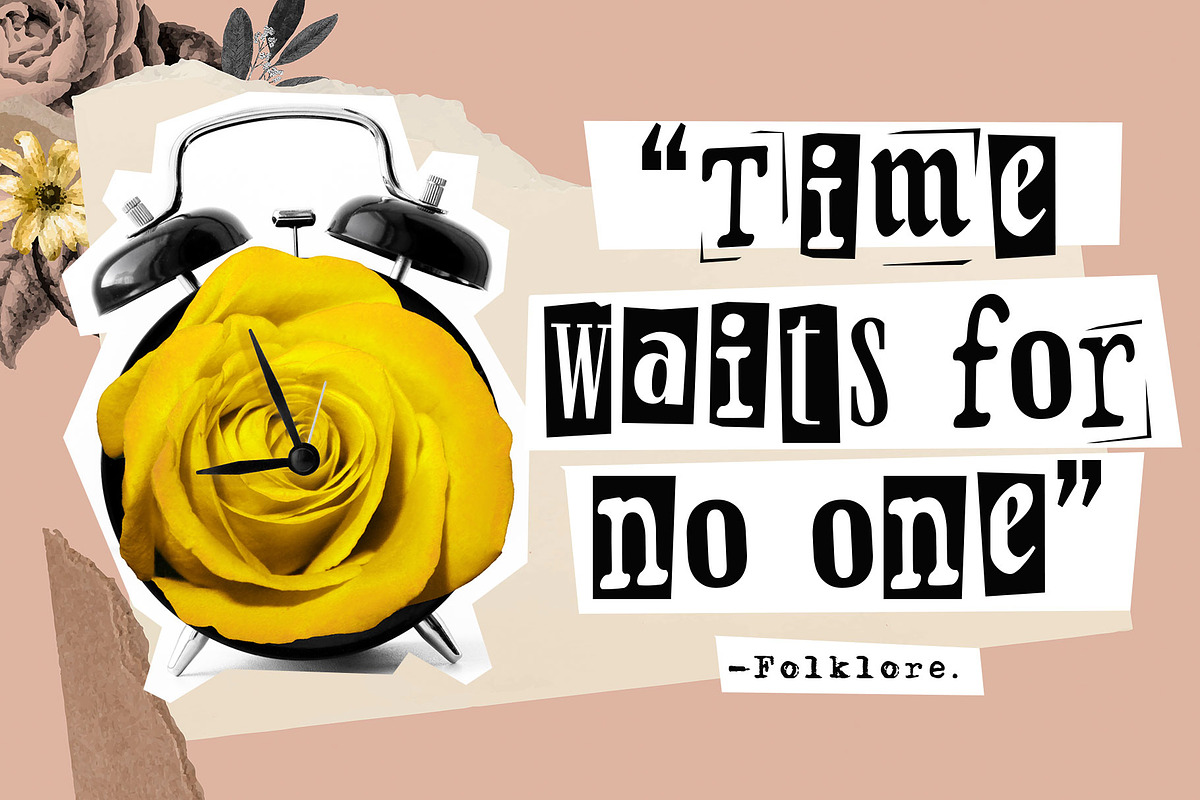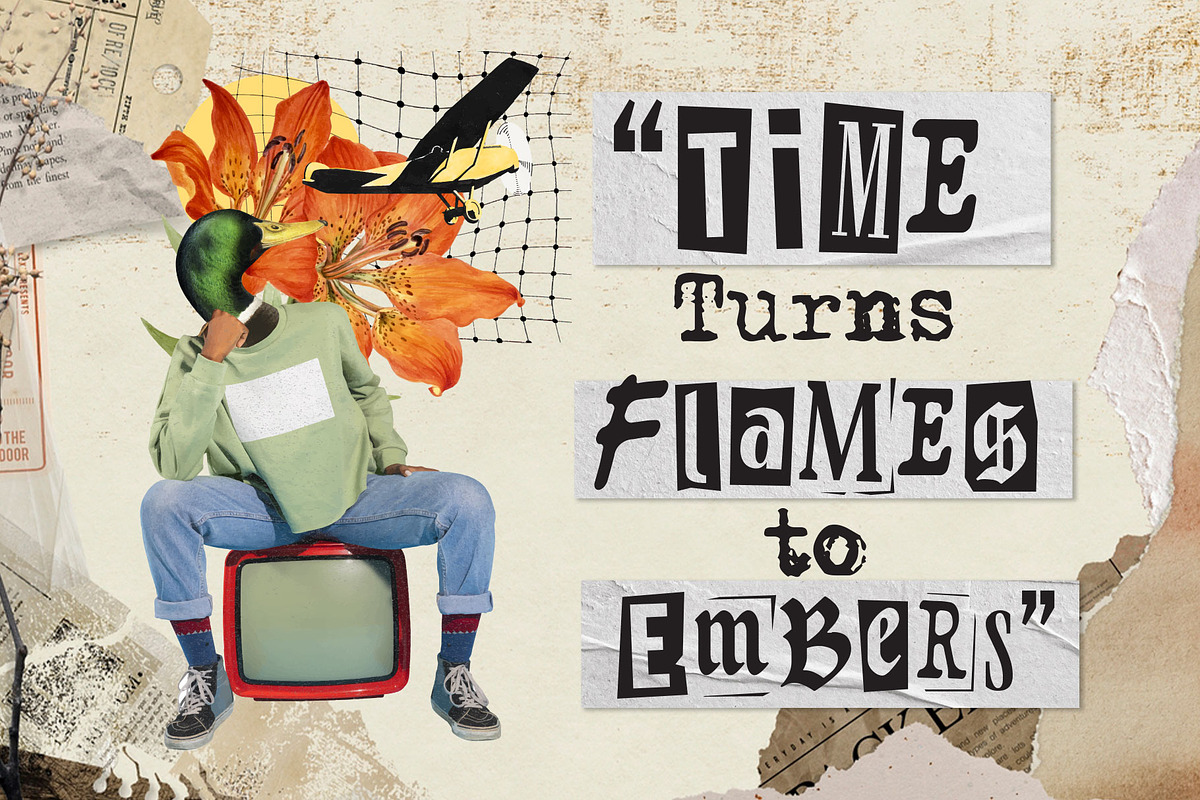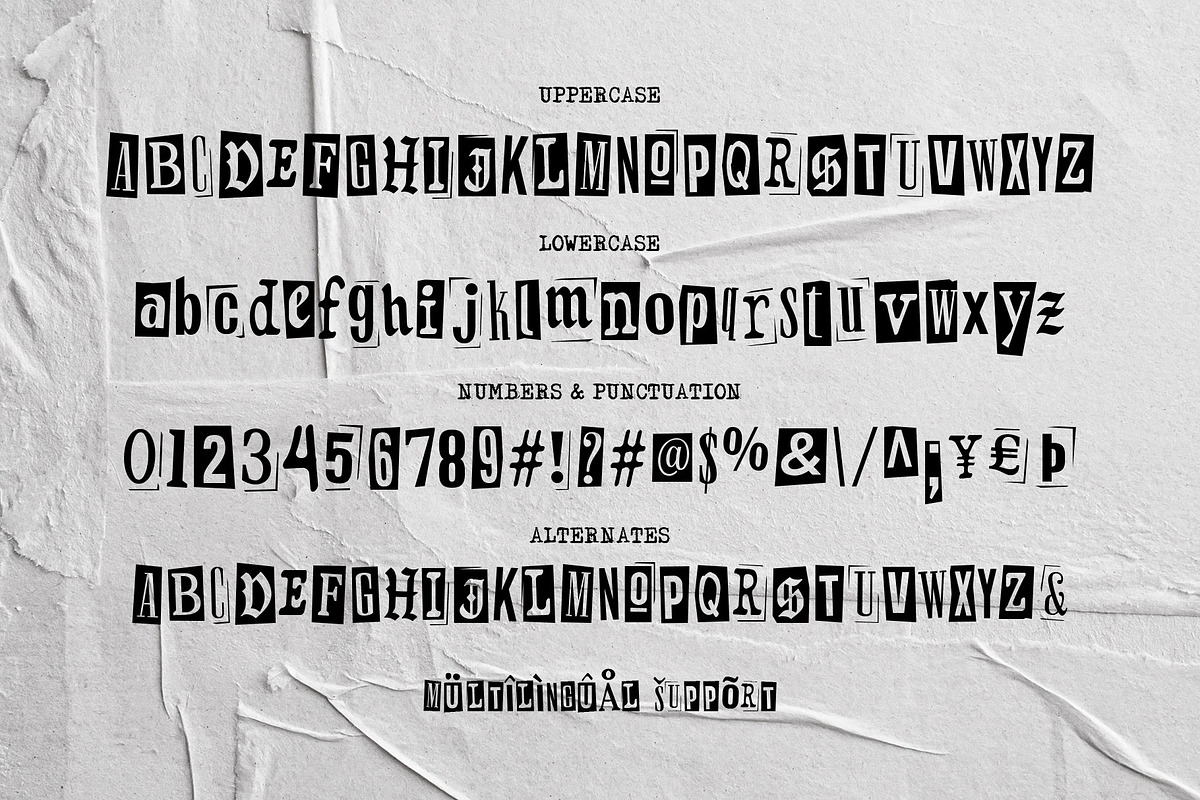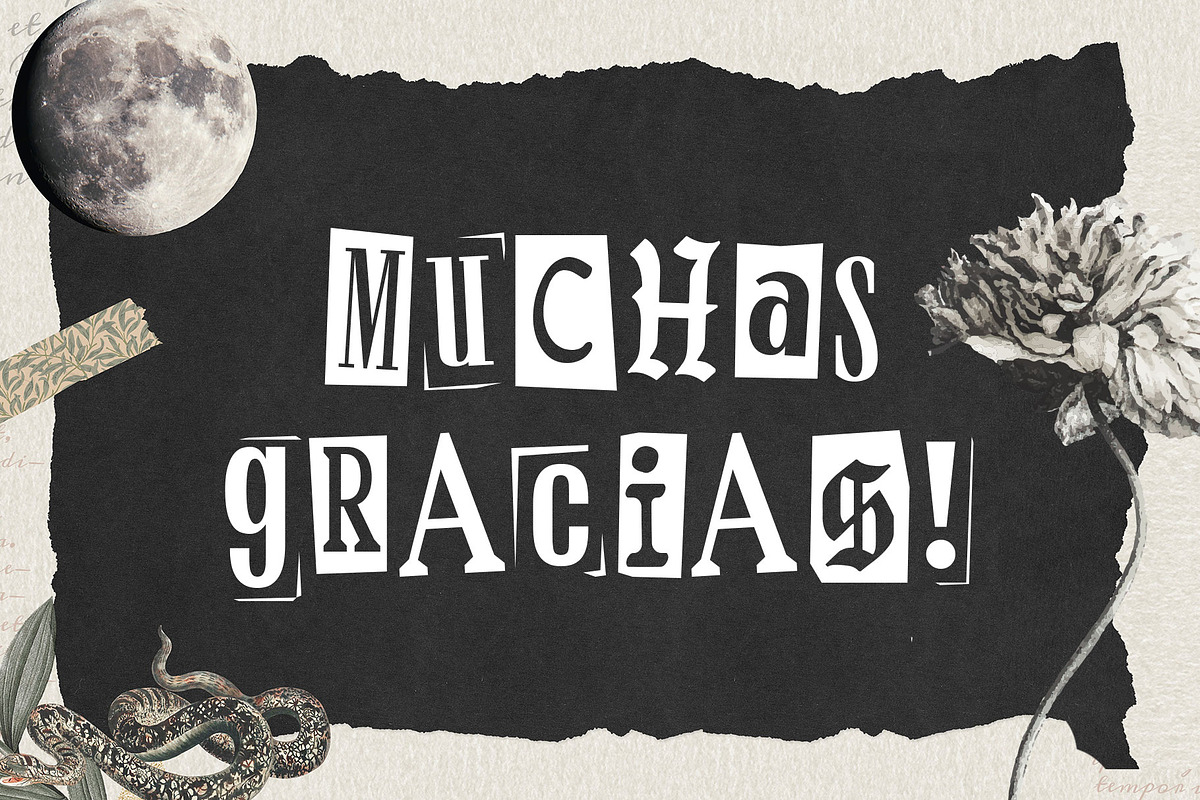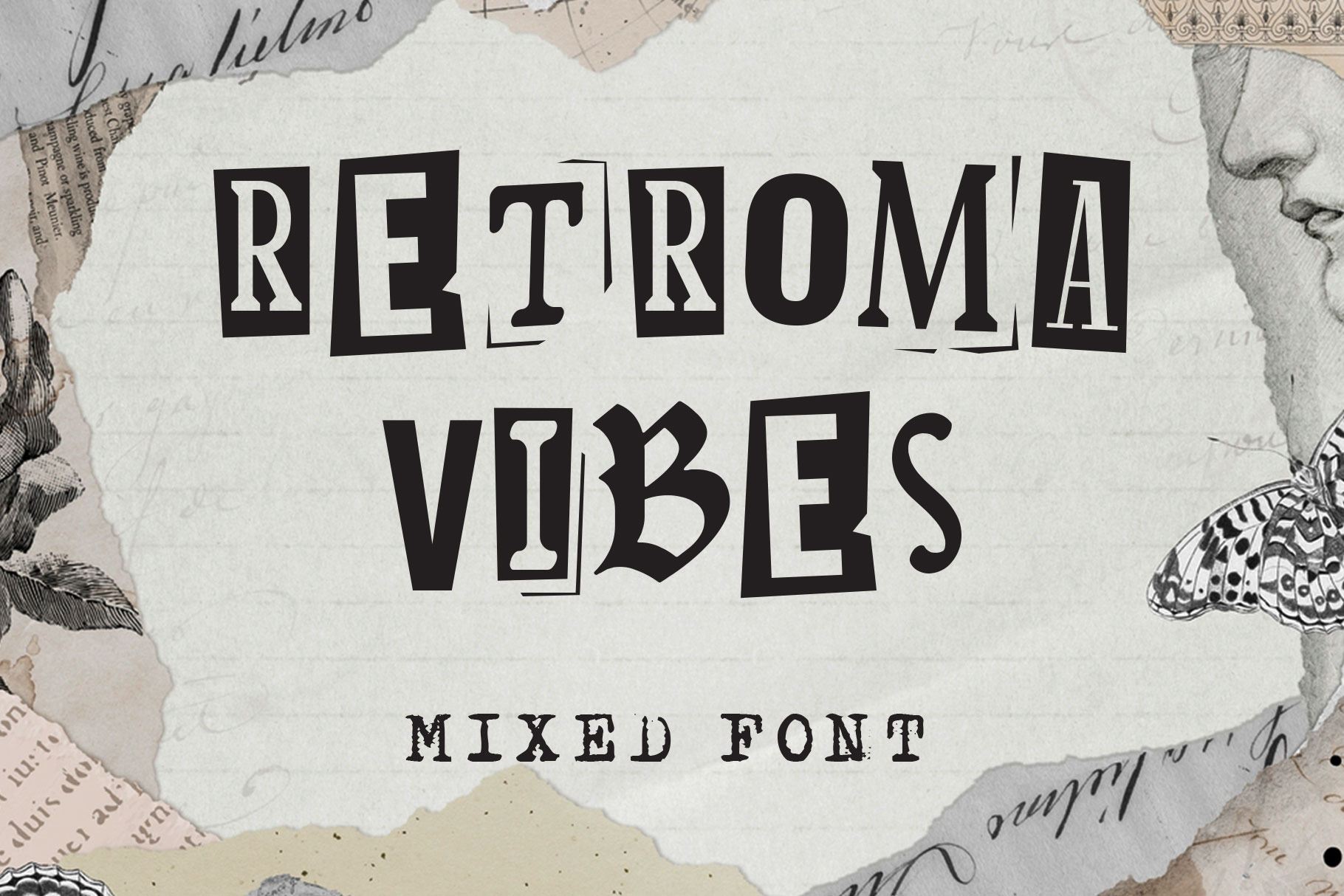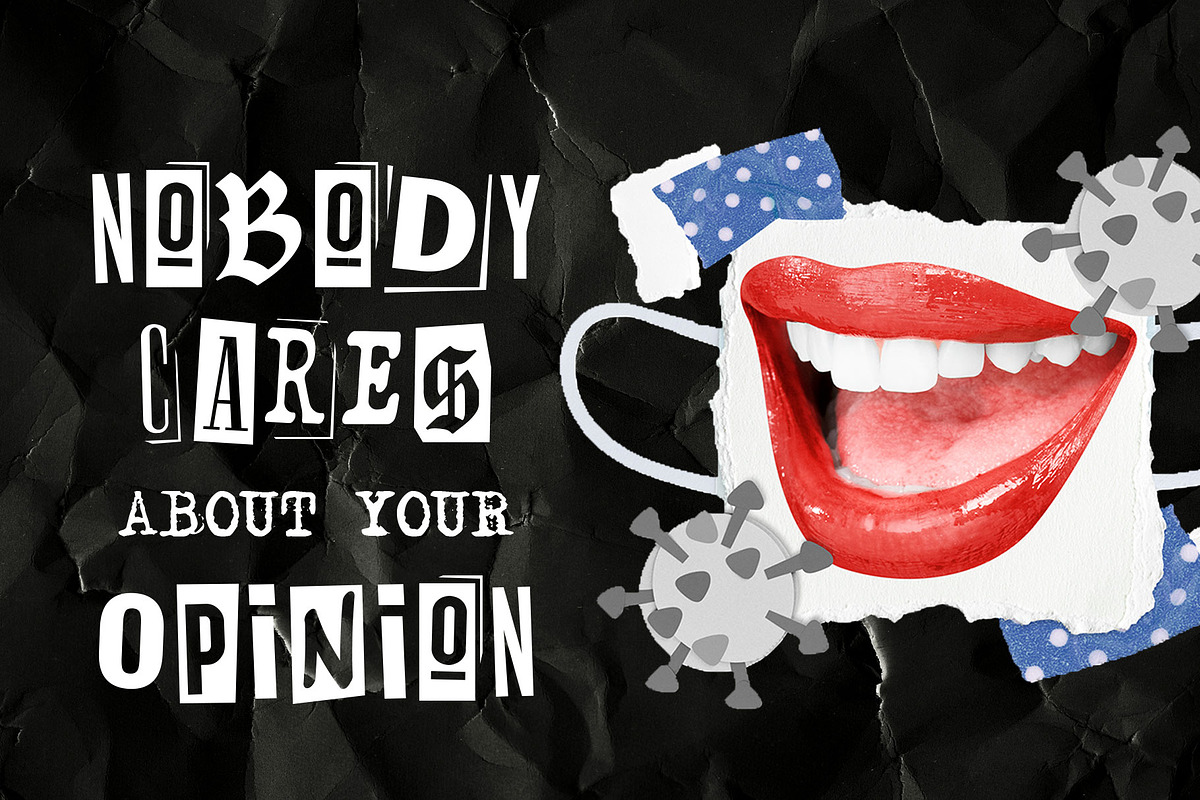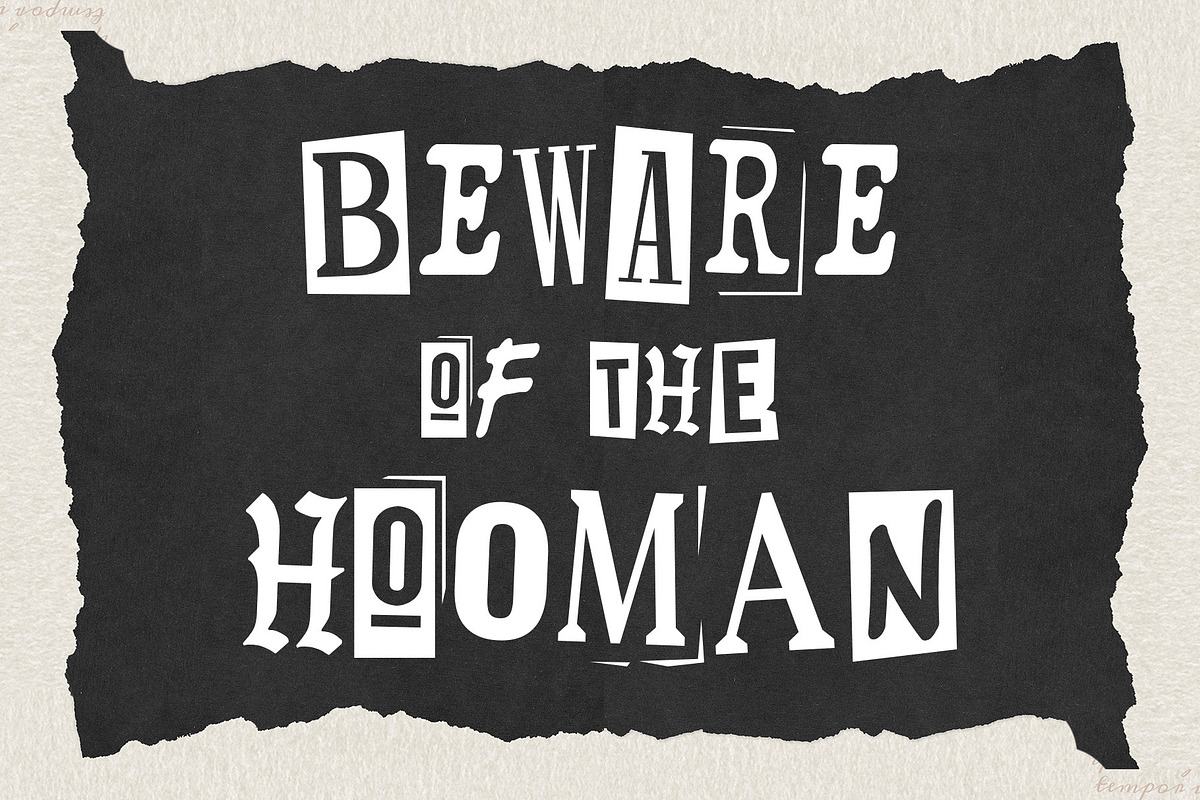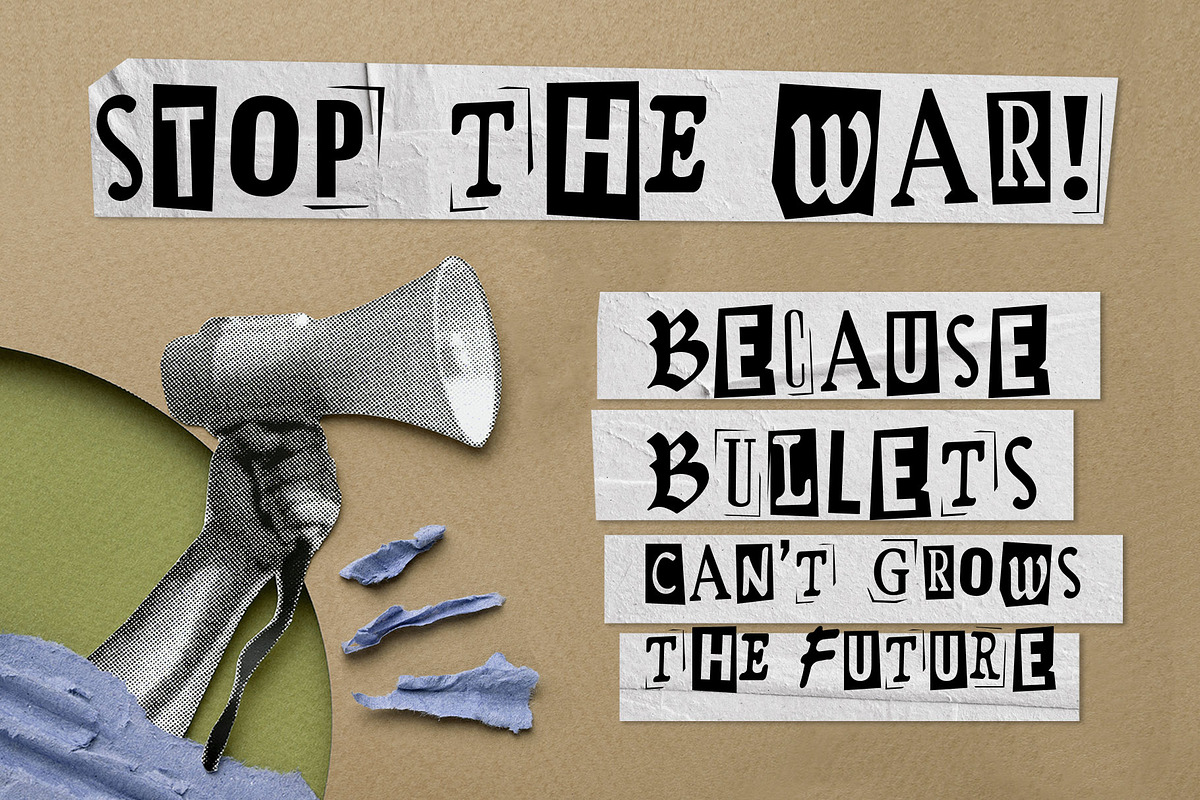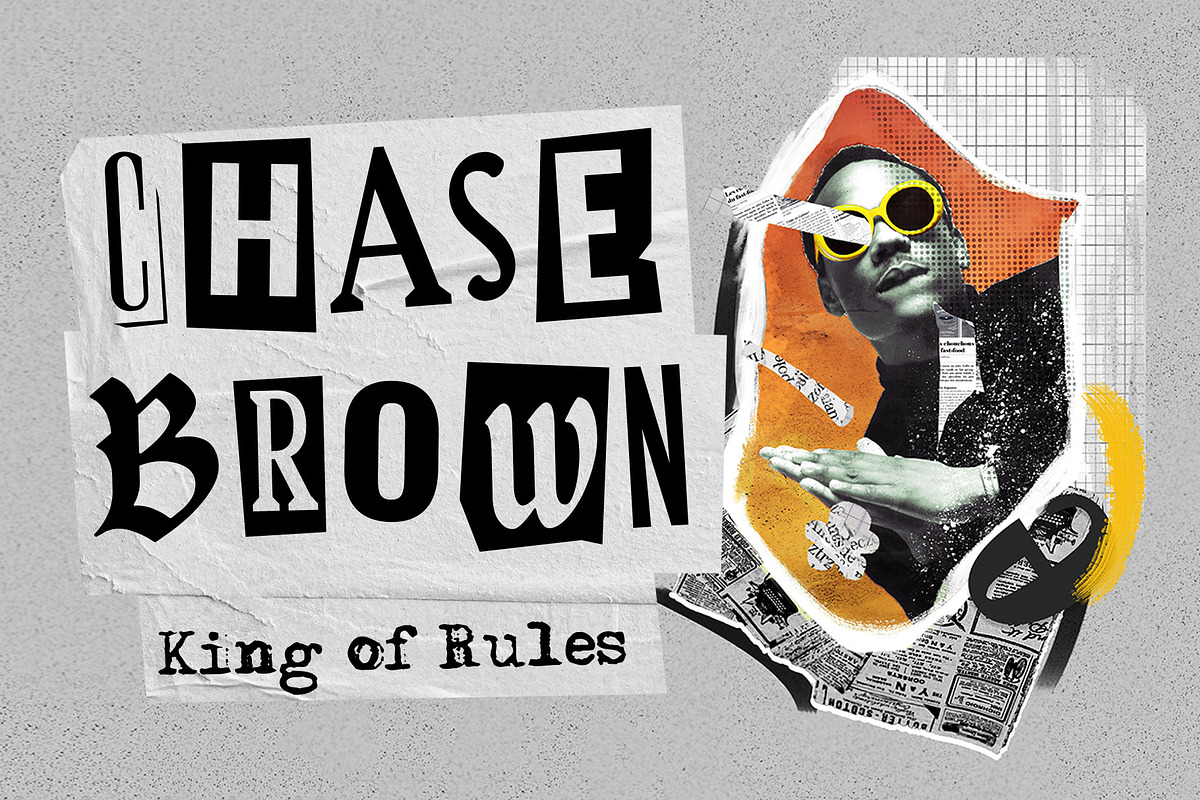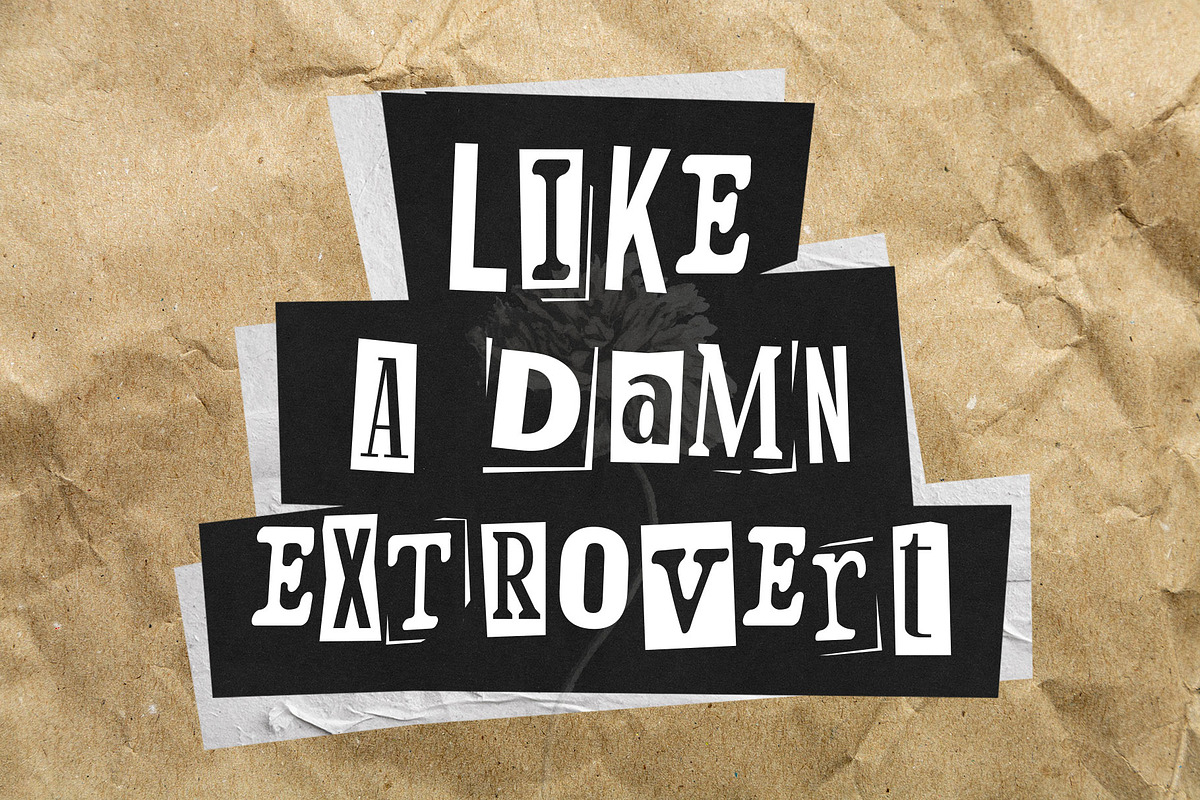
Retroma Vibes - Mixed Font
Try something different, we proudly present our new exploration named "Retroma Vibes" a mixed font inspired by retro collage art and clipping of old newspapers.
Feel the old school taste with this block font mixed of sans serif, condensed serif, blackletter, handwriting, and old typewriter style, combined into a chaotic collage style.
You can also mix and match the letter by using the alternates characters or switching with the lowercase which gives you a more attractive design.
- Stylistic alternates